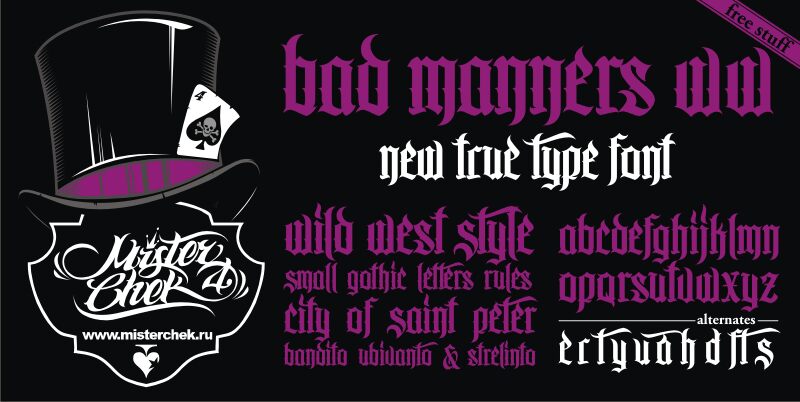
MCF Bad Manners Wild West by Andrey Chernevich of Mister Chek is a free blackletter font with a hand-cut silhouette. Tall, pointed strokes rise above packed letters, and deep notches sharpen the edges. The forms look dense and unruly.
Outlaw tales and dark folklore suit its thorny construction, making it useful for music merchandise and game graphics. It can also lend posters and event branding the look of an old painted sign, though the exaggerated spikes push it toward fantasy rather than strict historical recreation. In publishing, its clearest role is on covers for horror, western, and gothic stories.